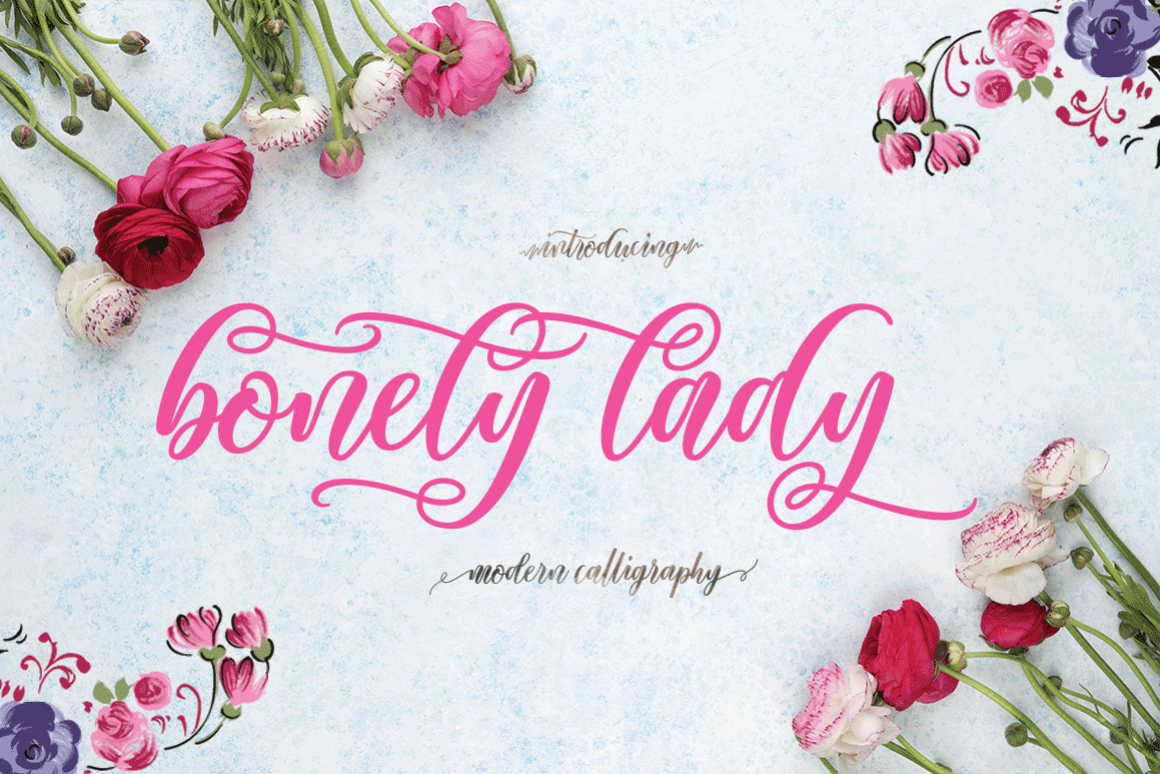
Bonety Lady
Bonety Lady script font
Bonety Lady is a modern calligraphy font, with characters dance along the baseline and elegant touch. With almost 714 glyphs. Opentype features with stylistic alternates, ligatures and multiple language support. Can be used for various purposes such as logos, wedding invitation, letterhead, signage,news, t-shirt, heading lable, posters, badges etc.